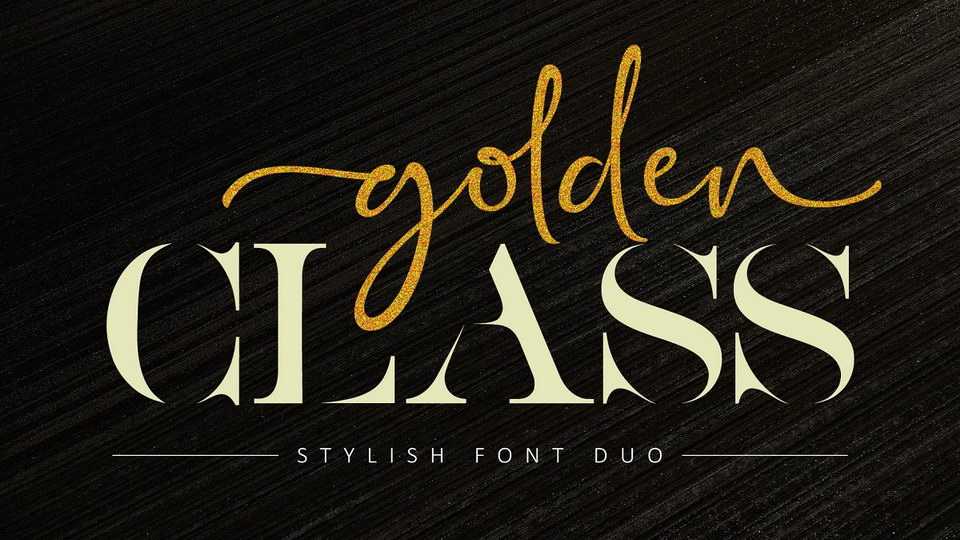
Download Golden Class Script, a stylish casual handwritten font. Golden Class font is great for logo, branding, wedding invitation, quotes, text, magazine or anything do you want.